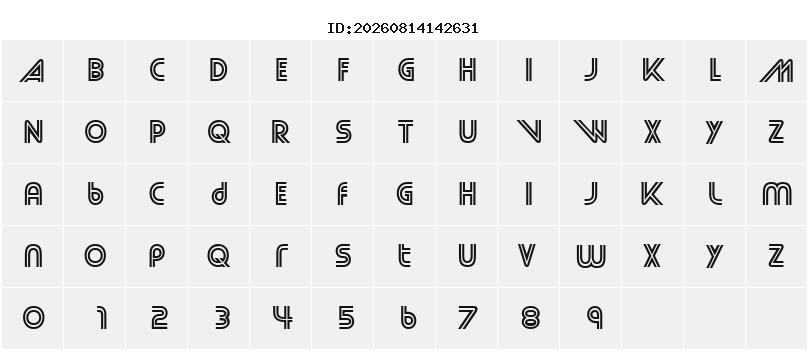
• Font Name: Street Cred
Street Cred.ttf is a modern, elegant sans-serif font designed for ultimate readability and visual harmony. Perfect for branding, headlines, web design, and print materials.